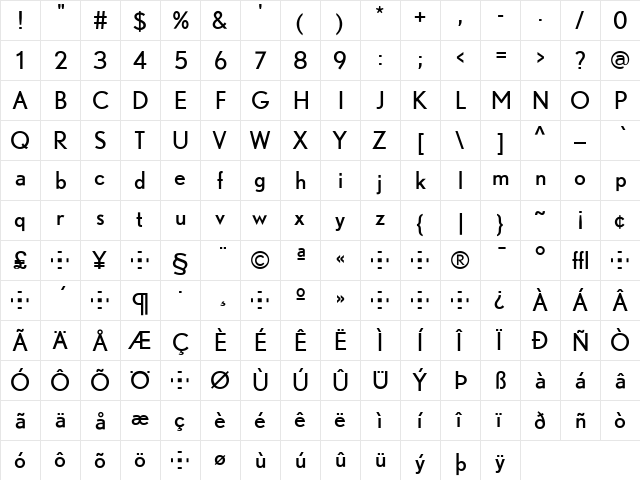
Nobel Regular
Design Context for Nobel Typeface
Nobel is a composed and adaptable typeface that performs quietly and consistently across a wide range of design contexts.
Pro Tip: Pair Nobel with a font of contrasting weight or personality to build a more expressive typographic hierarchy.